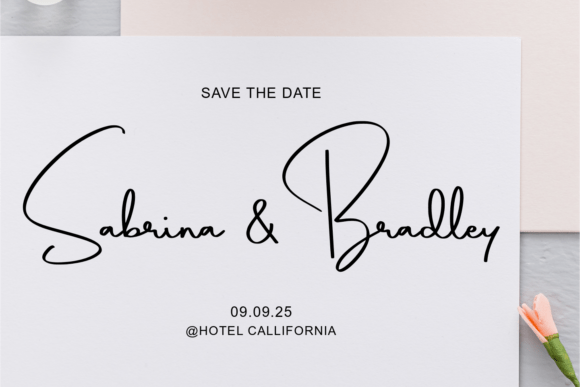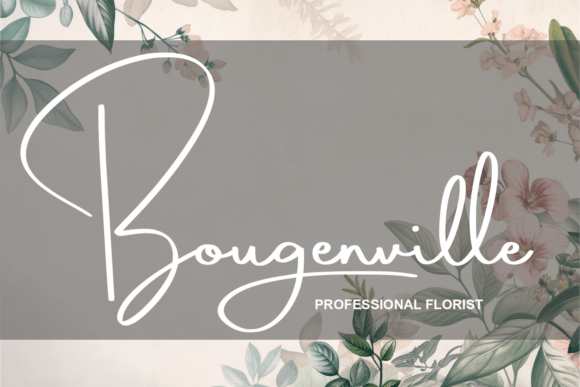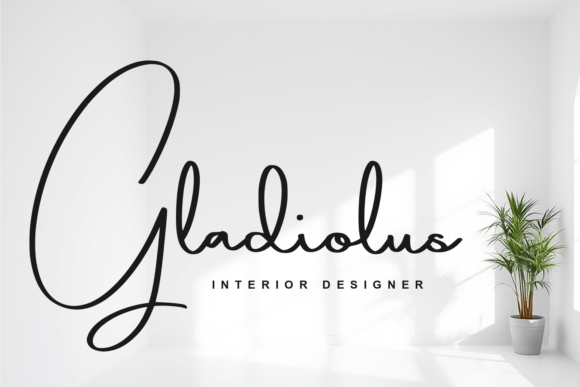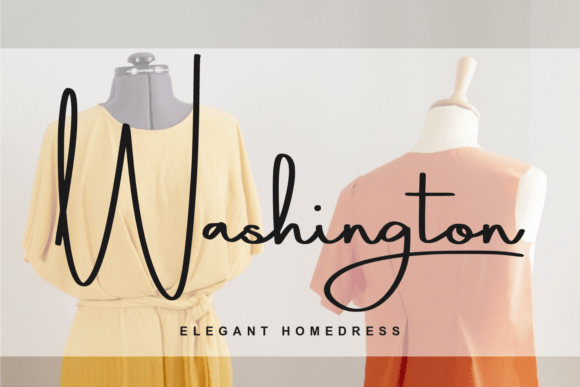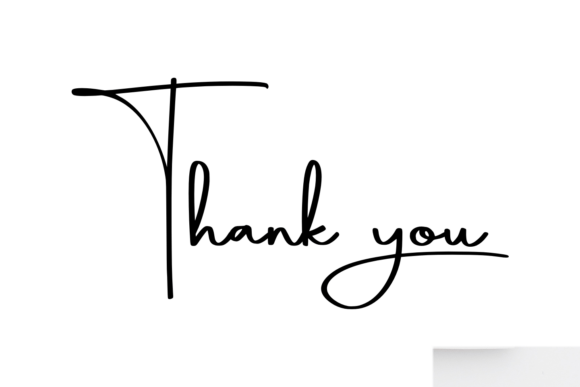
The Calligrafy Font: Elevating Designs with Artistic Flair
I still remember the design project that led me to discover the Calligrafy font. I was working on a logo design for a boutique client, and I was struggling to find the perfect font that exuded elegance and sophistication. The client wanted something that would make their brand stand out, but I was stuck in a creative rut. That’s when I stumbled upon Calligrafy, and it completely transformed my design. The fluid brush strokes, dynamic curves, and expressive letterforms instantly captured the essence of hand-painted calligraphy with a modern twist.
Here’s what I love about Calligrafy:
- ✨ Fluid brush strokes that give it a natural, hand-painted feel
- ✅ Dynamic curves that add a touch of elegance to any design
- ✨ Expressive letterforms that make it perfect for logos, invitations, and social media graphics
- ✅ Versatility – it works beautifully for both digital and print designs
As for quirks, I’ve noticed a few:
- 🤔 Limited kerning options – be prepared to adjust letter spacing manually for optimal results
- ⚠️ Some glyphs may not display correctly in older software or browsers, so it’s essential to test your design across different platforms
The Story Behind Calligrafy: Designer Inspiration
Calligrafy was designed by a team of creative typographers who aimed to capture the essence of hand-painted calligraphy with a modern twist. Inspired by the works of renowned calligraphers and artists, they crafted a font that exudes artistic flair and contemporary elegance. The result is a versatile, stylish script font that’s perfect for a wide range of design applications.
| Font Name | Calligrafy Font |
| Author | Abodaniel |
| What makes Calligrafy unique? | Calligrafy’s fluid brush strokes, dynamic curves, and expressive letterforms make it a standout font that captures the essence of hand-painted calligraphy with a modern twist. |
| Is Calligrafy suitable for body text? | While Calligrafy is a beautiful font, it’s best suited for headlines, titles, and short paragraphs. Its artistic flair and elegant feel make it perfect for adding a creative touch to your design, but it may not be the best choice for lengthy body text. |